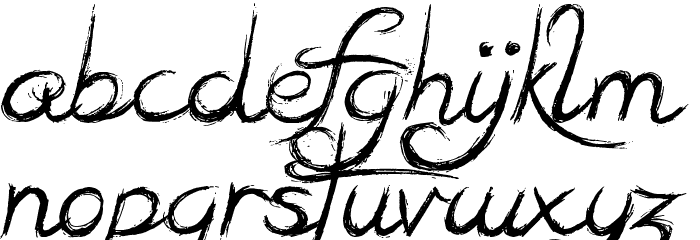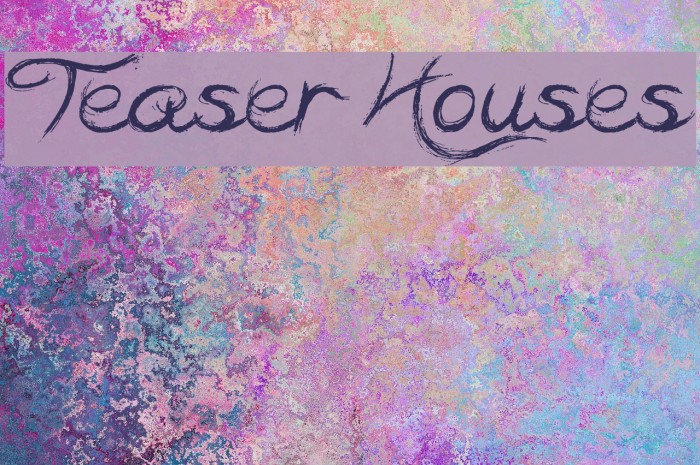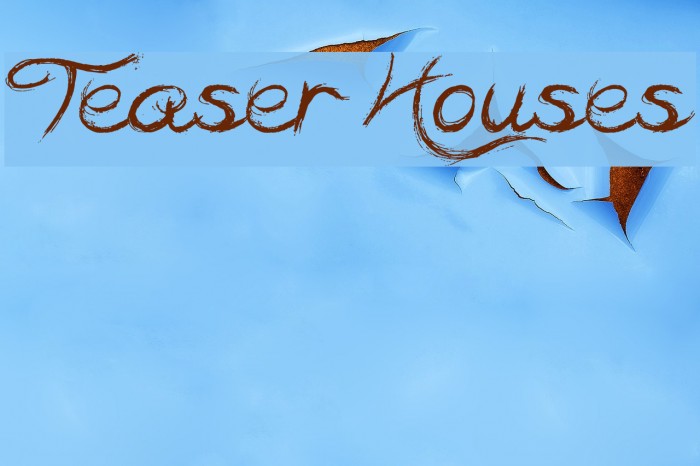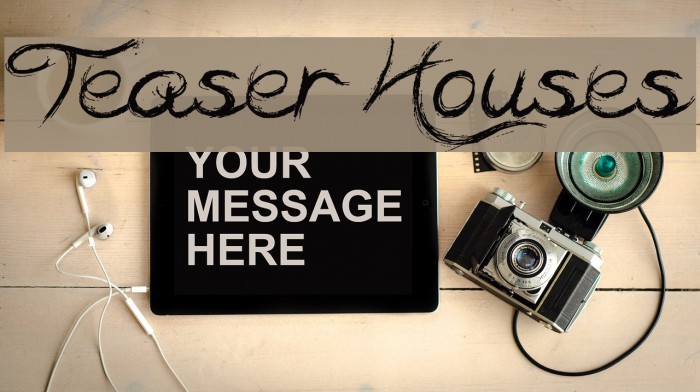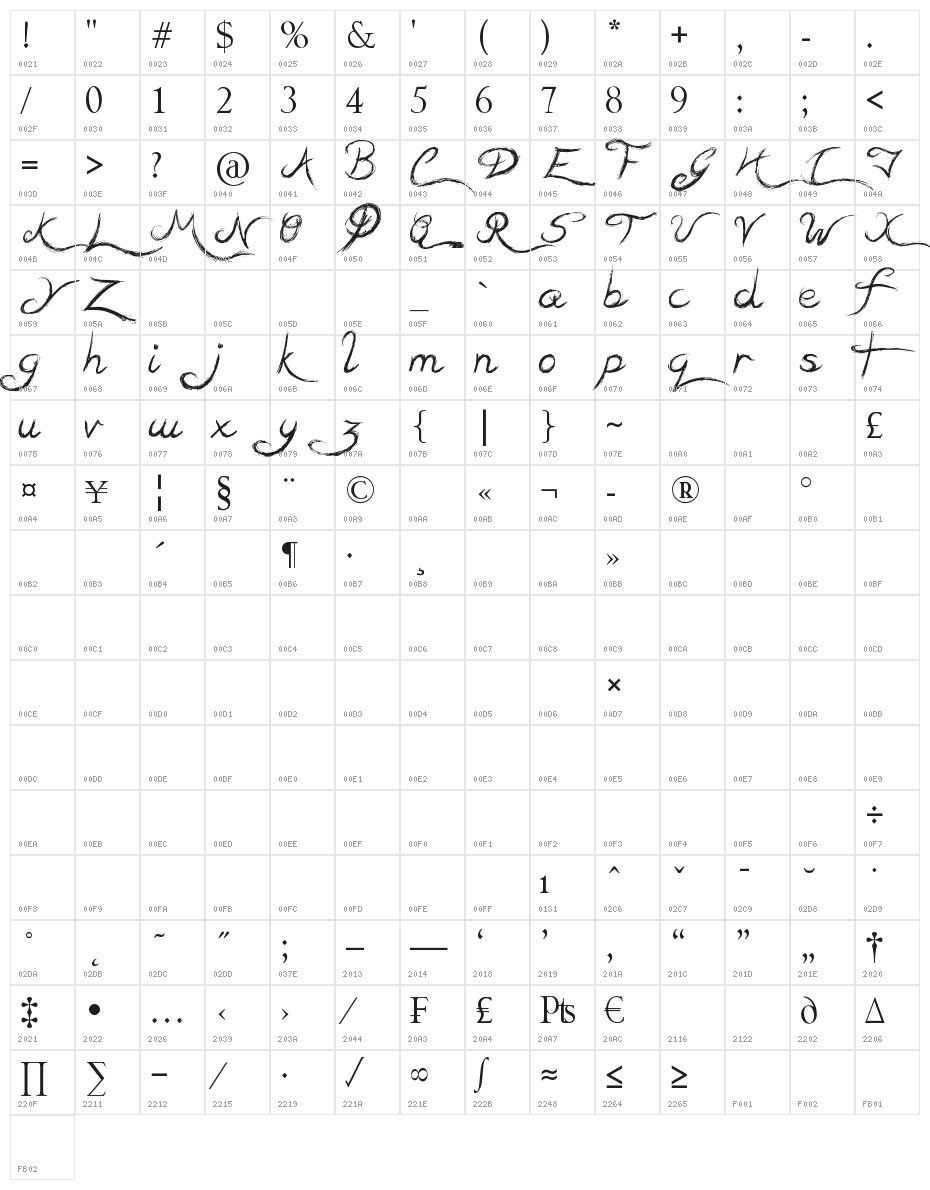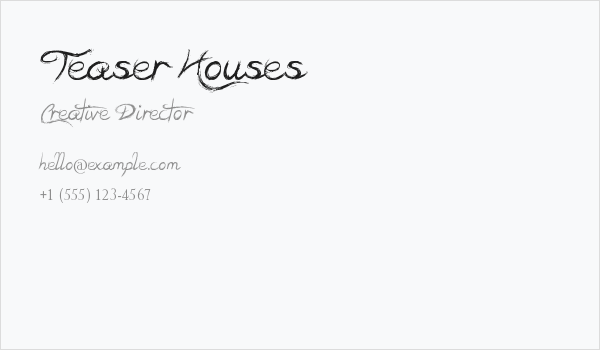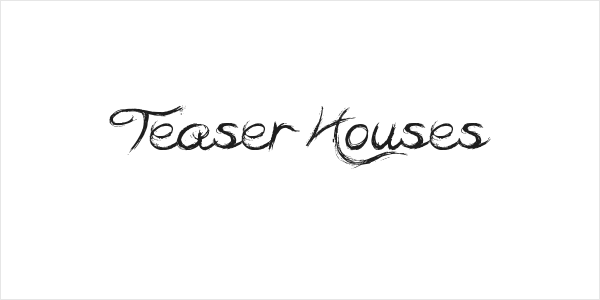
Teaser Houses Font
This font exhibits a unique and artistic style, characterized by its brush-like strokes and expressive flair. The uppercase letters have a flowing, almost calligraphic appearance, with each character displaying a dynamic movement that suggests a hand-drawn quality. The lowercase letters continue this theme, offering a cohesive look that is both elegant and slightly edgy. The numerals are bold and clear, contrasting with the more intricate letterforms. Special characters maintain the artistic brushstroke style, ensuring consistency across the entire typeface. This font is ideal for projects that require a creative and distinctive touch, such as artistic branding, invitations, or posters.
An artistic, brush-stroke font with a calligraphic flair.
- Font: Teaser Houses
- Proposed Projects: Artistic branding, invitations, posters, creative designs.
- Overall Style: Artistic, Expressive
- Use Case: Logos, Headlines, Artistic projects